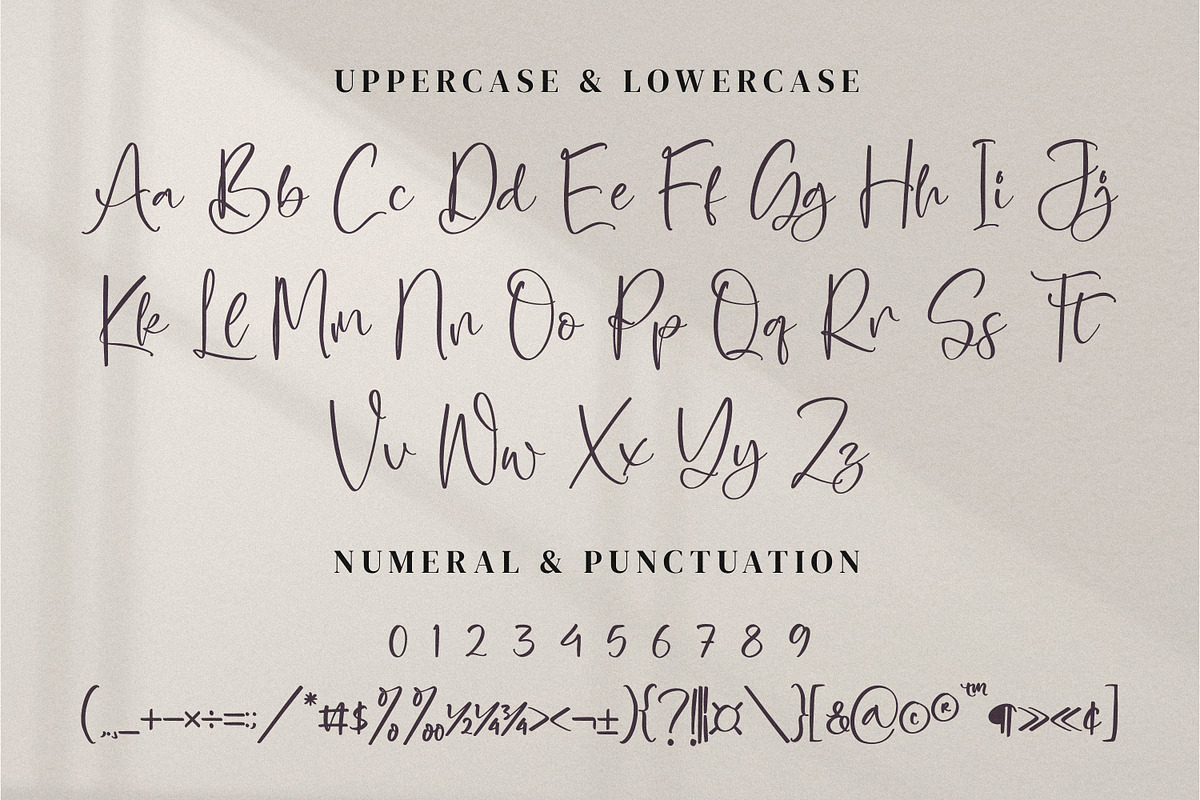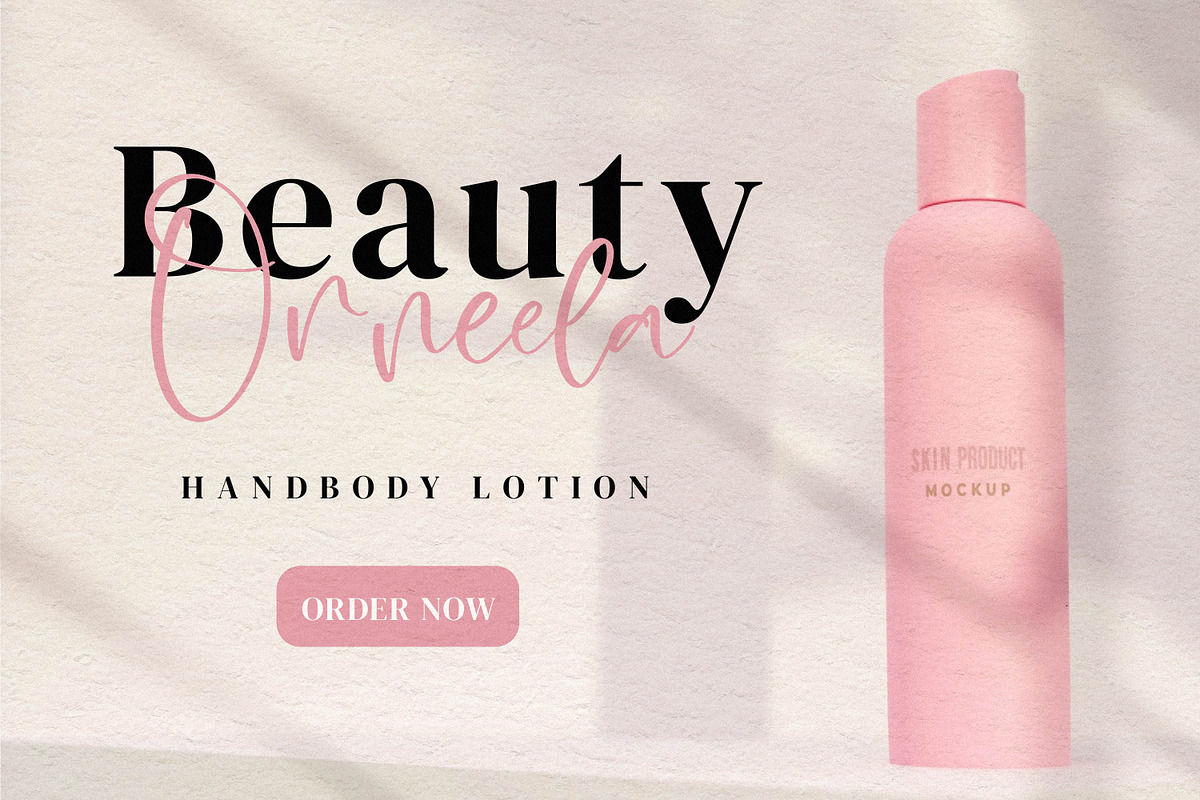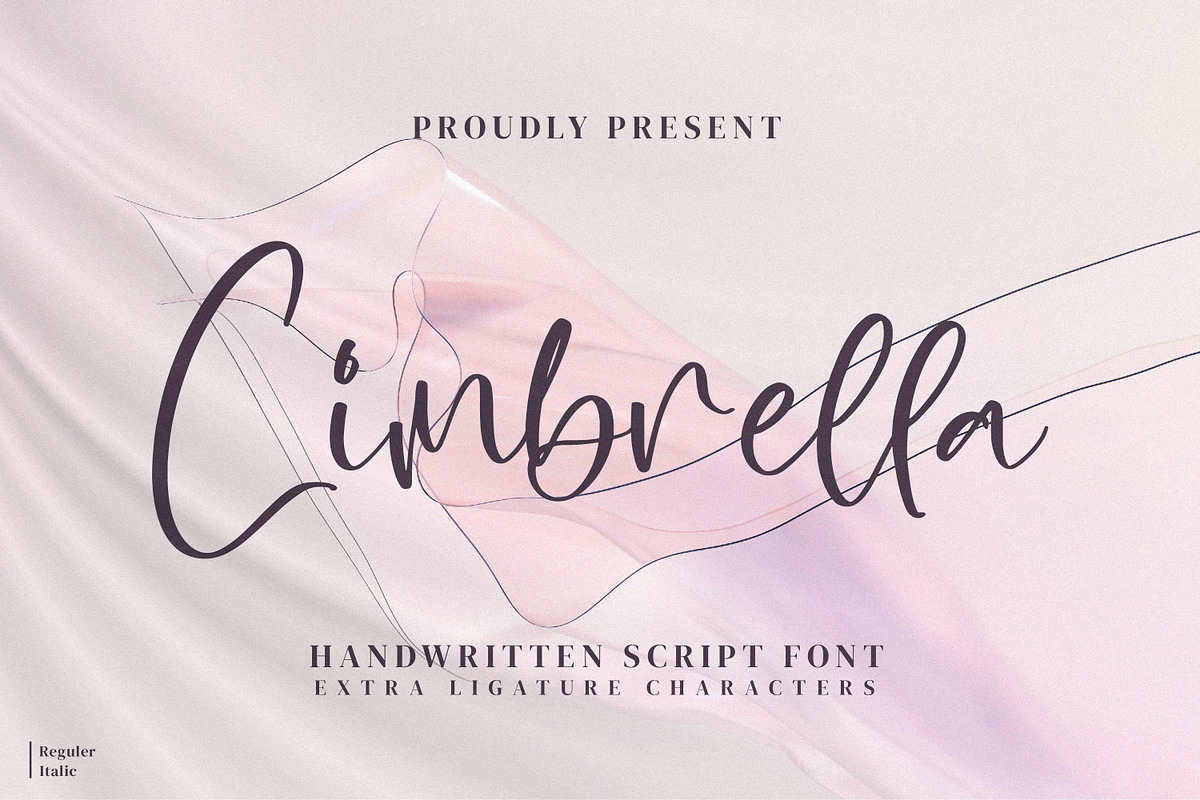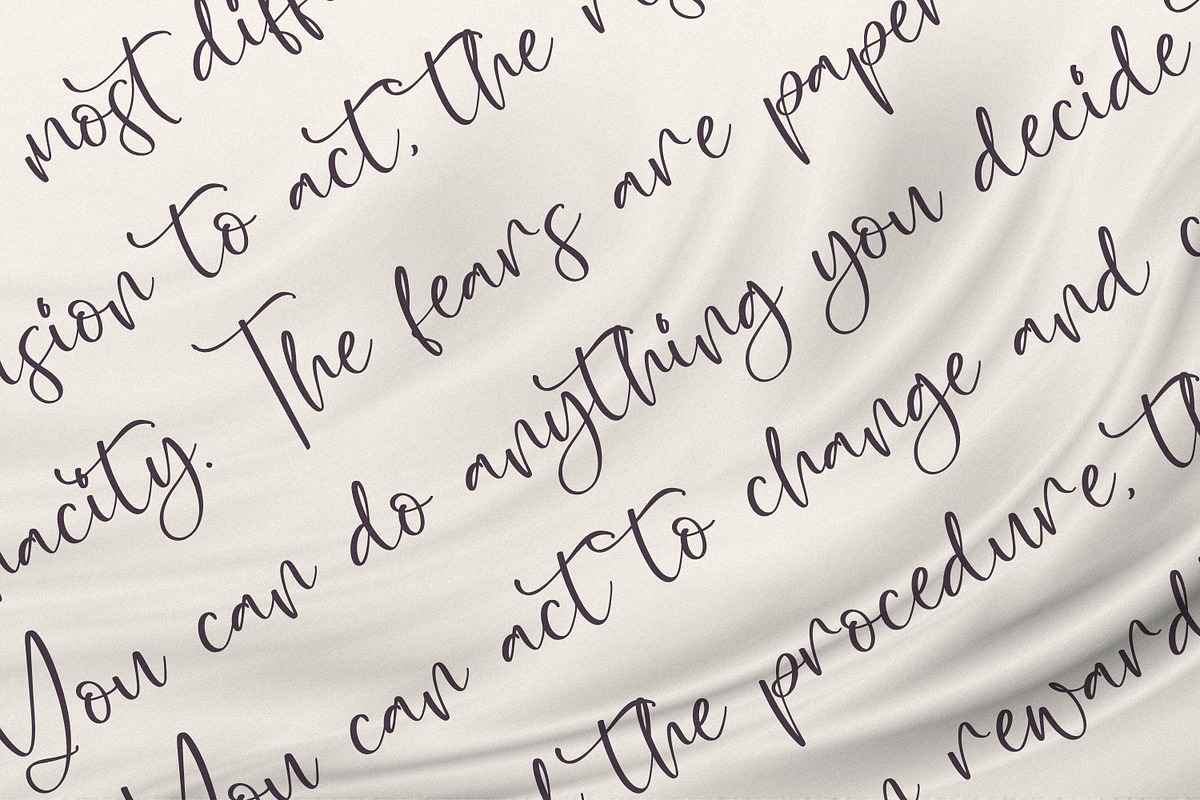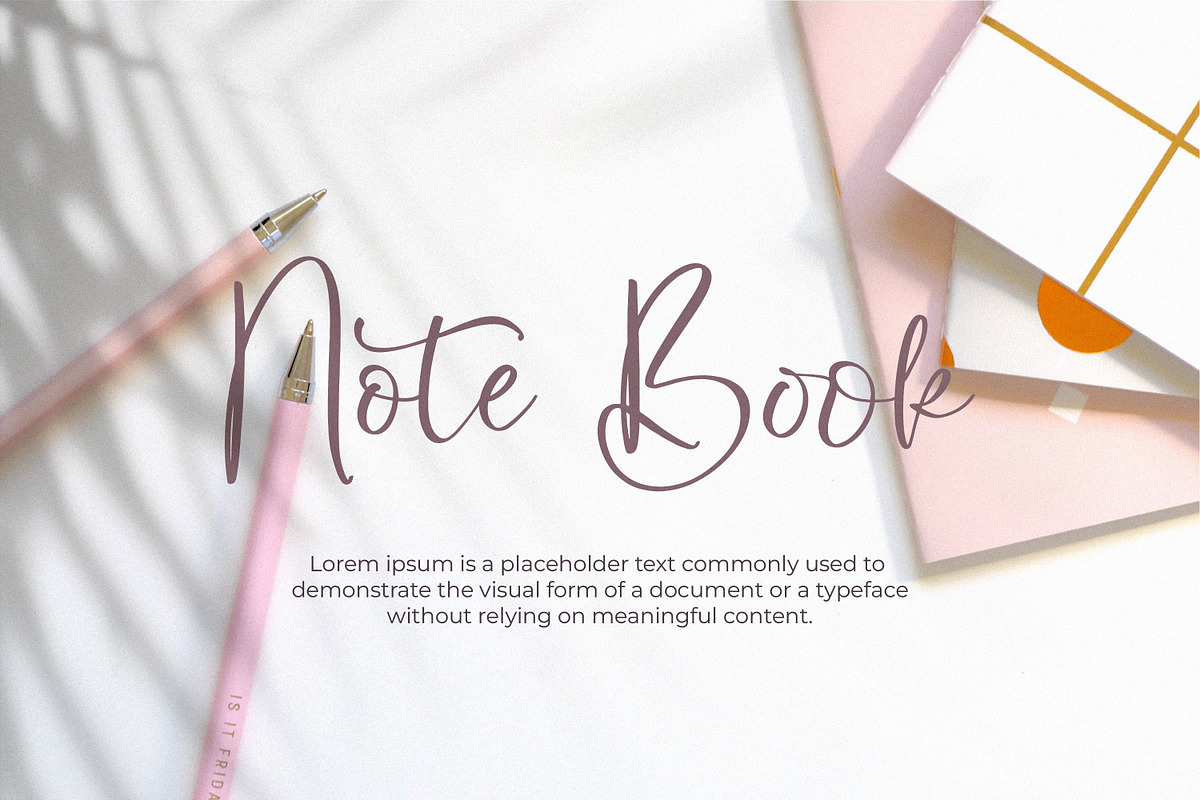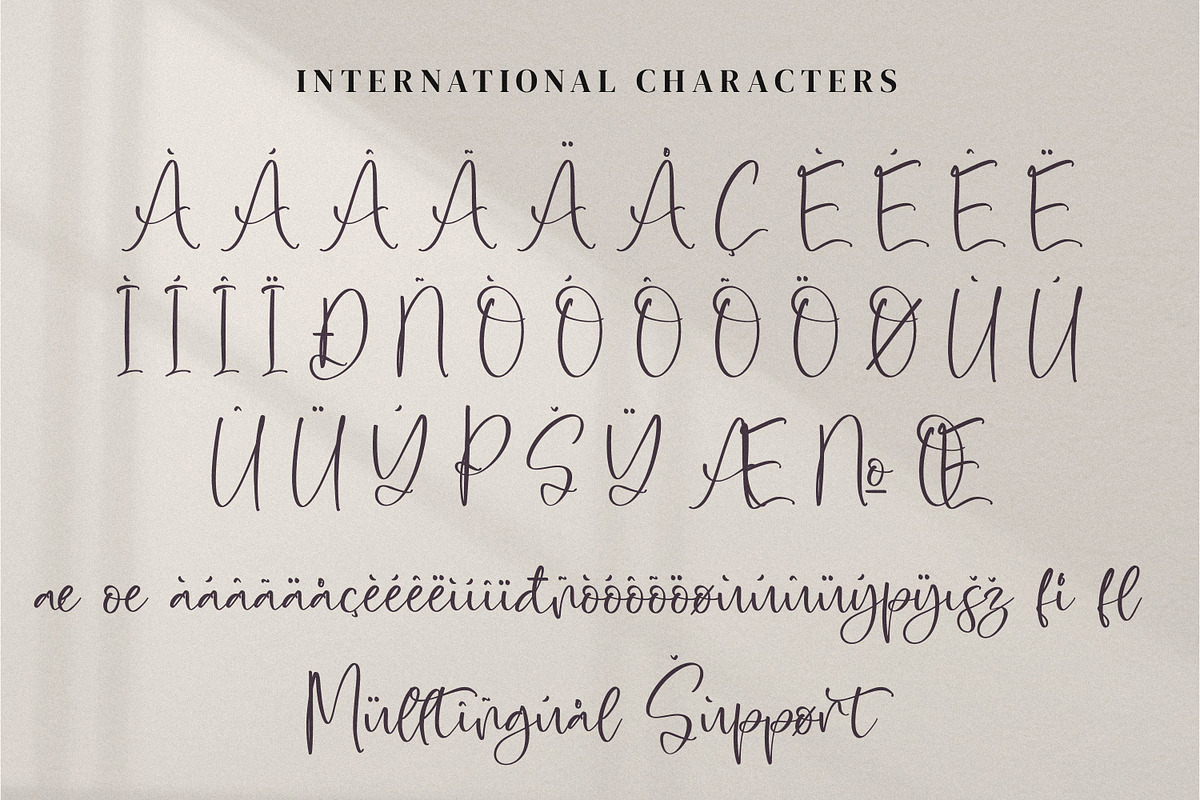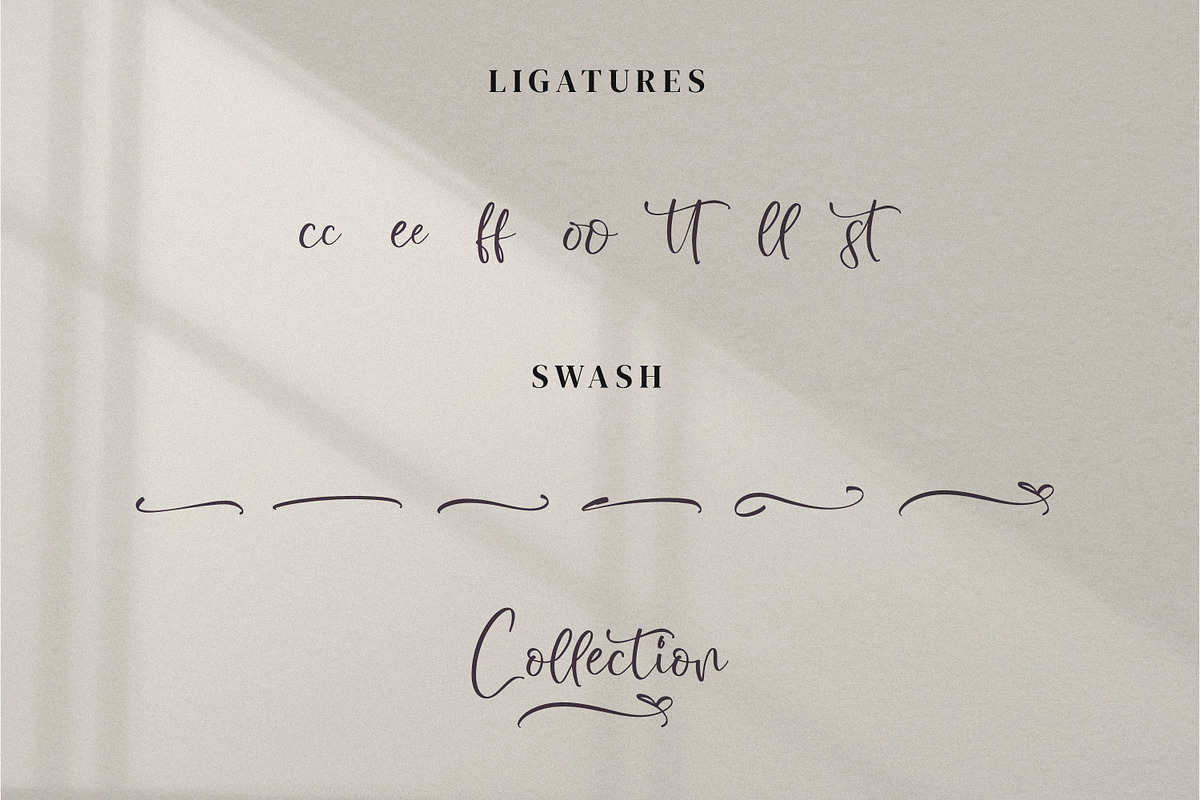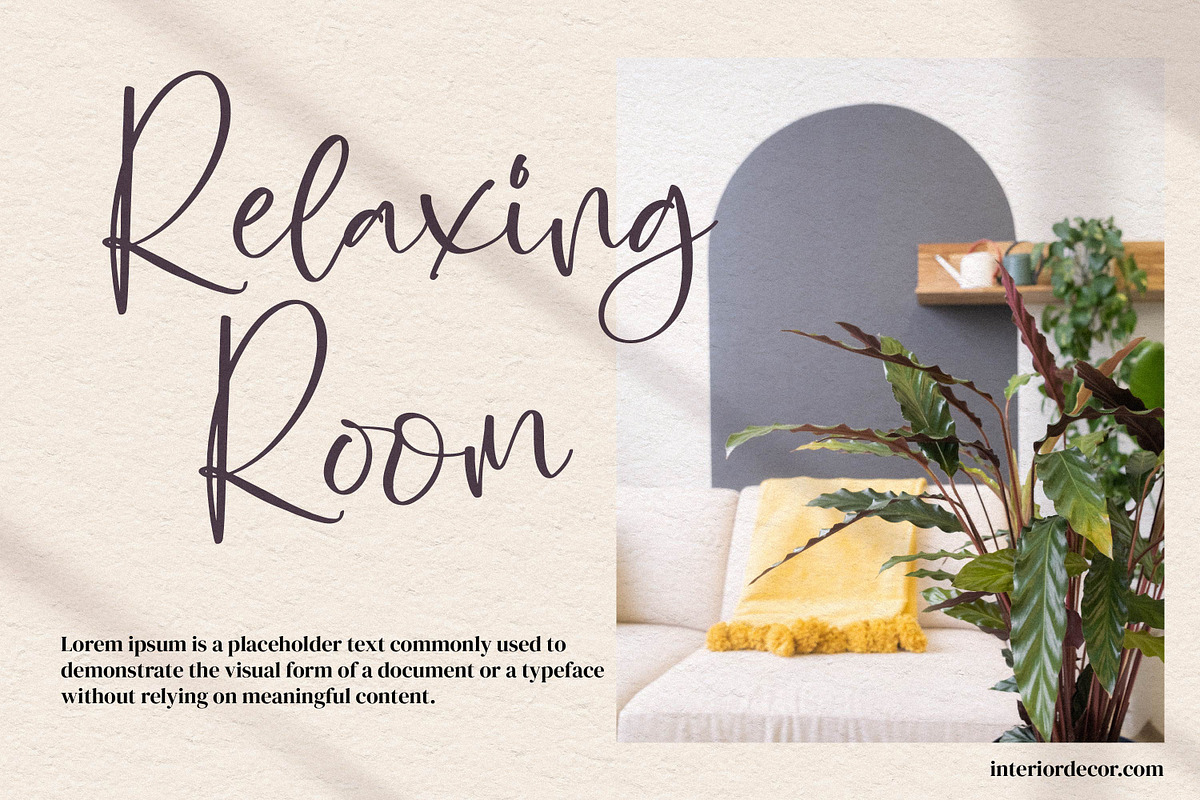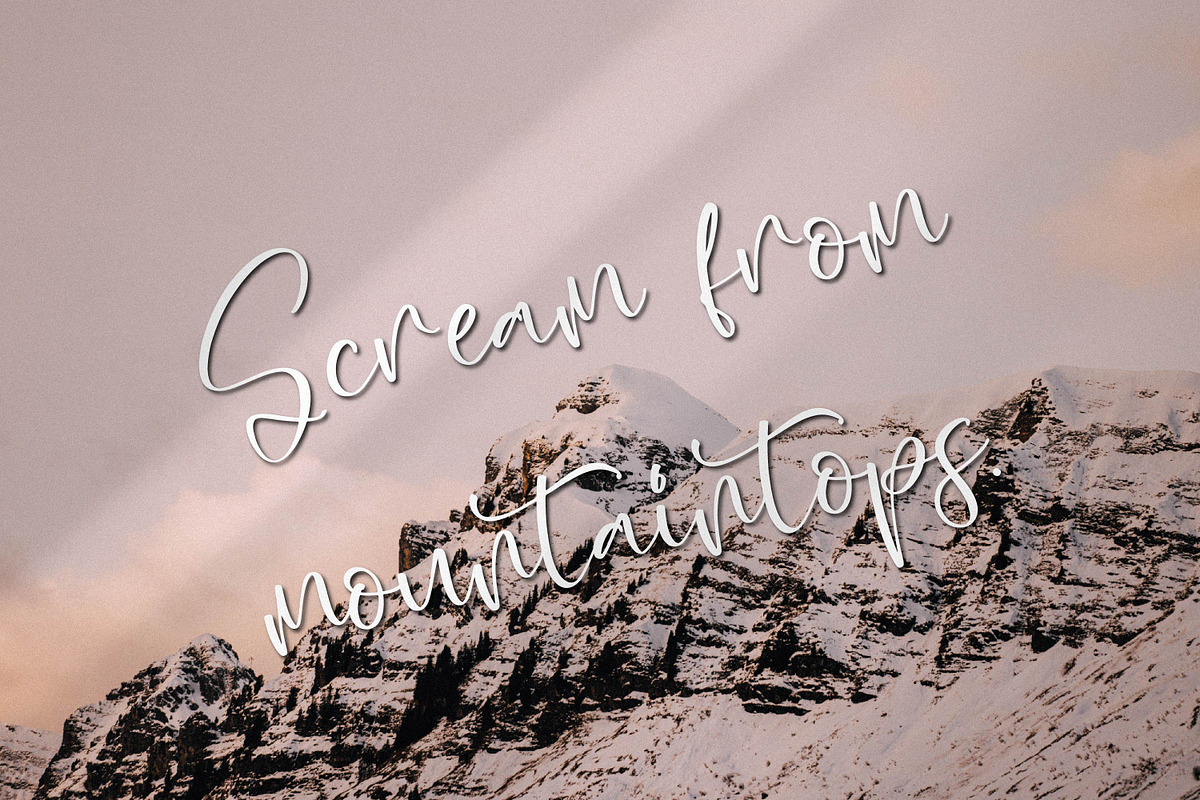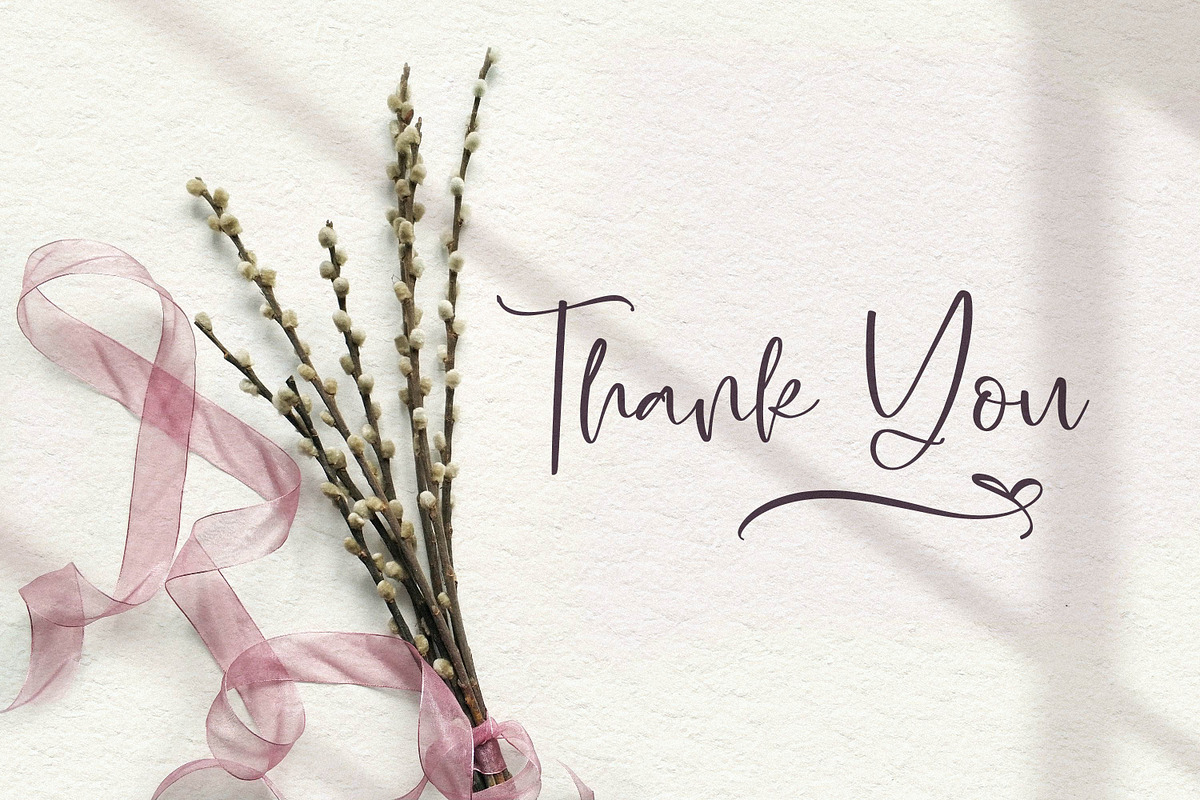
Cimbrella
Cimbrella - Handwritten Script Font, from Integritype Studio, is a premium Handwritten Script Font, perfect for any project like: logos, branding projects, homewares designs, product packaging, mugs, quotes, posters, shopping bags, t-shirts, covers books, business cards, invitation cards, greeting cards, labels, photography, watermarks, special events and all your other luxury projects that require a premium taste.
Ligature, Alternate & Swashes